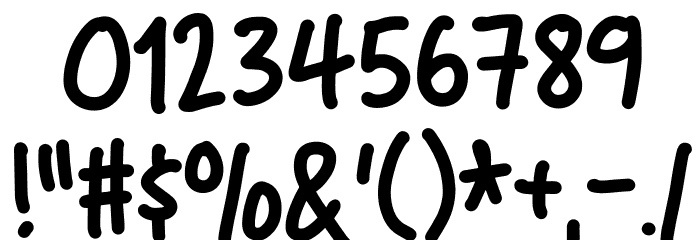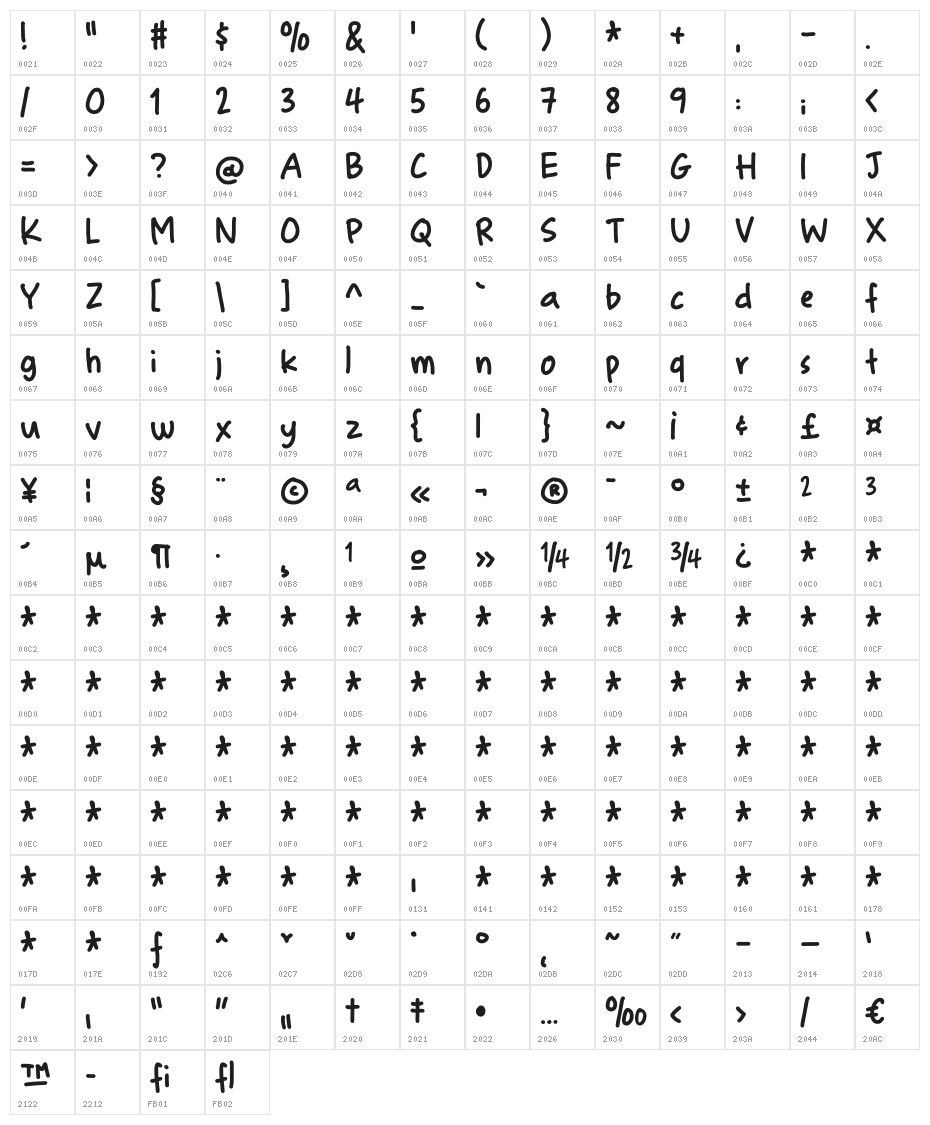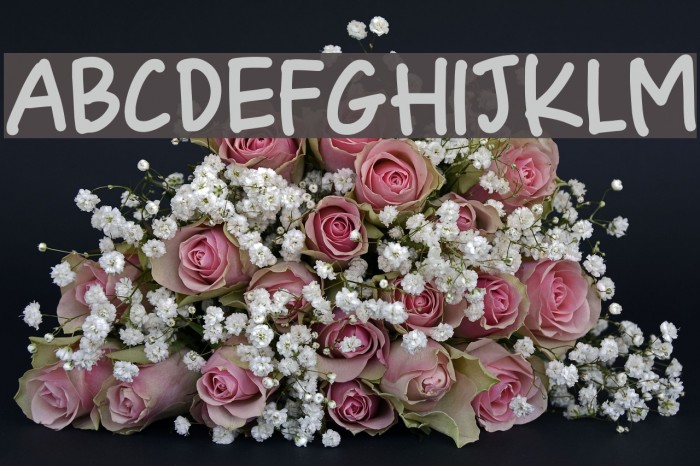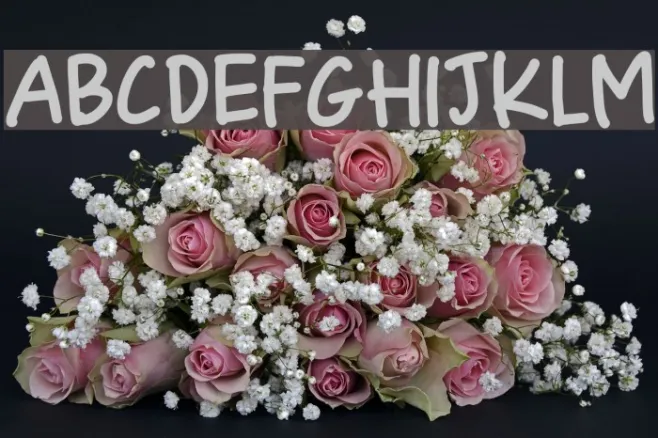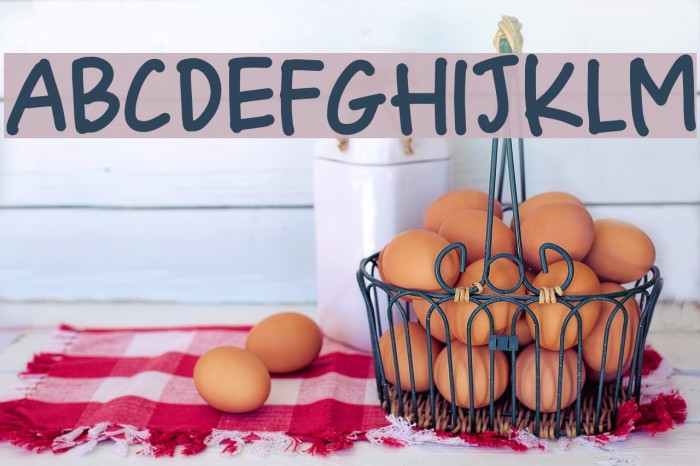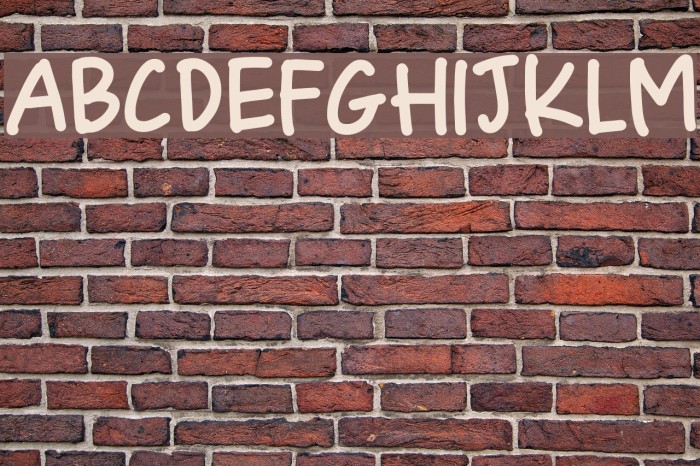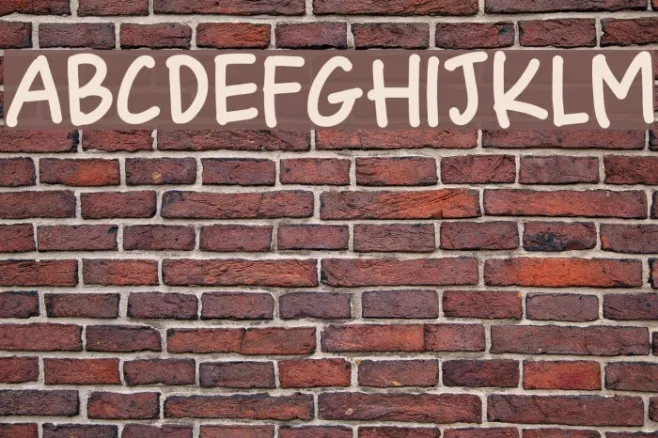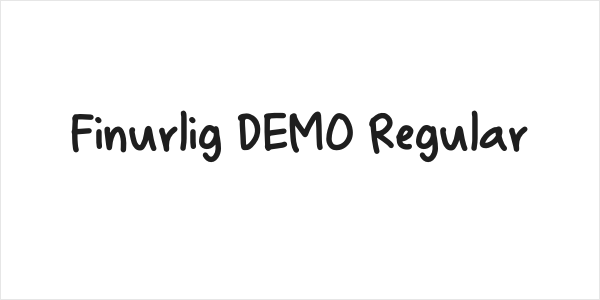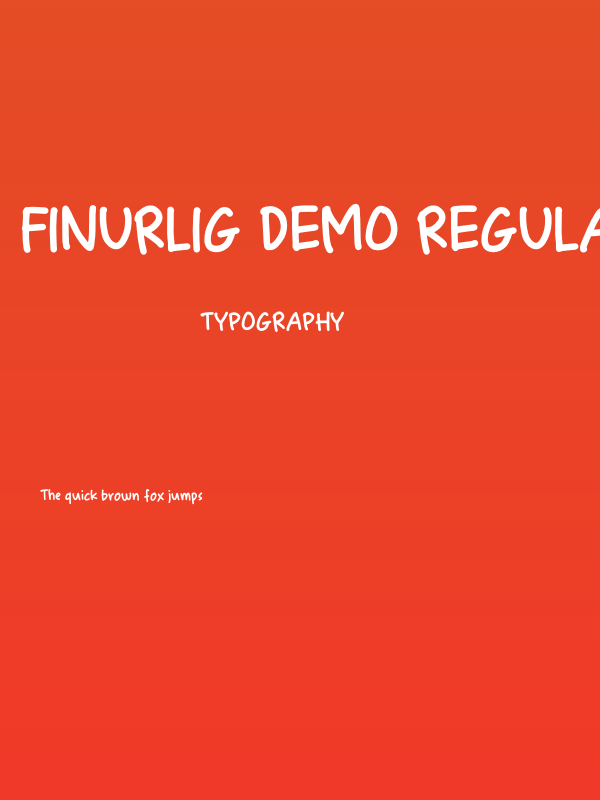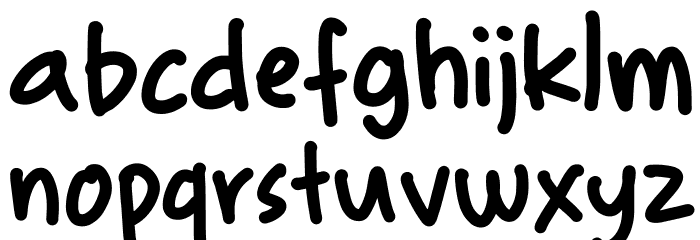
Finurlig DEMO Regular Font
Finurlig DEMO Regular Description
This playful and casual font features a handwritten style that exudes a friendly and approachable vibe. The letters are slightly irregular, adding a touch of whimsy and character. The strokes are bold and rounded, giving the font a warm and inviting appearance. It maintains a consistent weight throughout, ensuring readability while retaining its unique charm. The numbers and special characters follow the same style, making it versatile for various uses. Its informal nature makes it ideal for projects that require a personal touch or a fun, relaxed atmosphere.
Overall StyleCasual
Use CaseHeadlines, Logos, Informal Text
Proposed ProjectsIdeal for greeting cards, children's books, casual branding, and social media graphics.